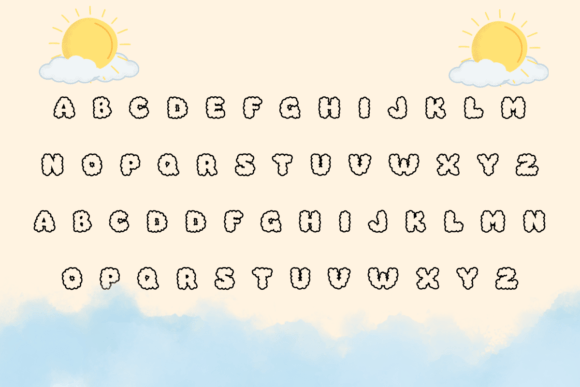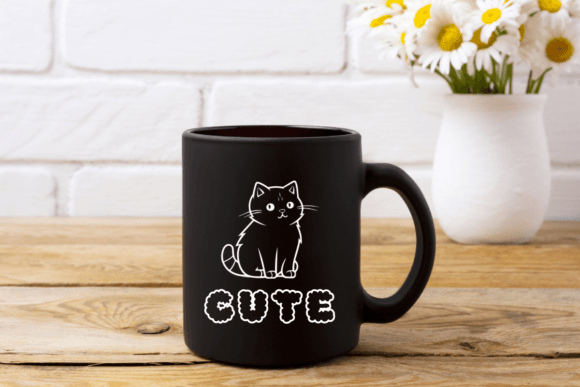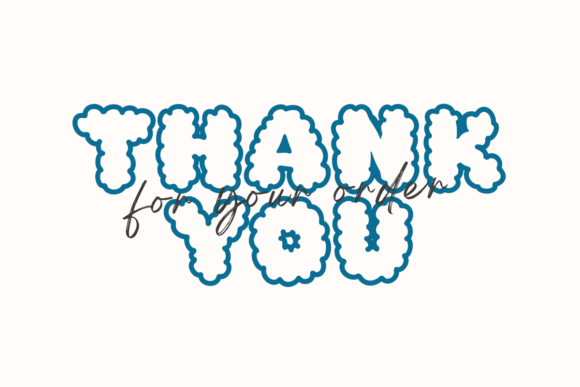
The Sweetest Font You’ll Ever Meet: Cute Clouds
Have you ever been working on a design project, and suddenly, you’re stuck on finding the perfect font? I remember a recent experience where I was designing a children’s book, and I needed a font that would bring a smile to a kid’s face. The project required a playful, whimsical feel, but I was struggling to find the right fit. That’s when I stumbled upon the Cute Clouds font, and it instantly became the perfect match! 🐰
A Personal Review of Cute Clouds
I’m excited to share my honest review of the Cute Clouds font. Here’s what I love and a few quirks to consider:
- ✨ Adorable and Playful: The letters are designed to look soft and puffy, just like clouds, bringing a charming and whimsical vibe to your text.
- ✅ Highly Versatile: Perfect for various projects, such as children’s books, posters, greeting cards, and more.
- 💕 Easy to Read: Despite its playful design, the font remains clear and easy to read, making it suitable for both digital and print materials.
Now, let’s talk about a few small quirks:
- 🤔 Limited Use in Small Sizes: The font’s playful design can become less legible in very small sizes. It’s best used in larger sizes where its charm can shine.
- ⚠️ Not Suitable for Formal Projects: Due to its playful nature, Cute Clouds might not be the best fit for formal or professional projects that require a more serious tone.
The Designer Inspiration Behind Cute Clouds
Imagine a designer who grew up loving whimsical illustrations and children’s books. They wanted to create a font that would capture the essence of fluffy clouds and bring joy to readers of all ages. With Cute Clouds, they aimed to create a playful and charming typeface that’s perfect for creative projects. 🌫️
- Q: Can I use Cute Clouds for my children’s book?
- A: Absolutely! Cute Clouds is perfect for children’s books, bringing a playful and engaging feel to your story.